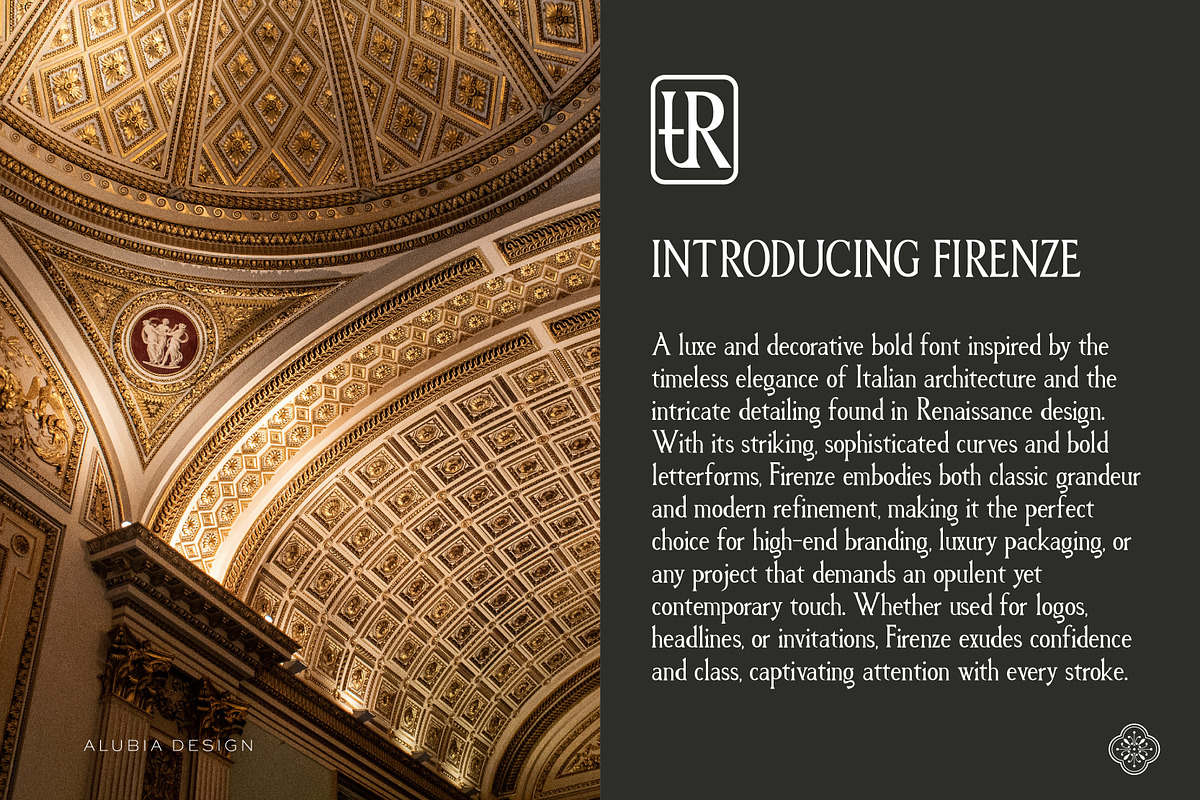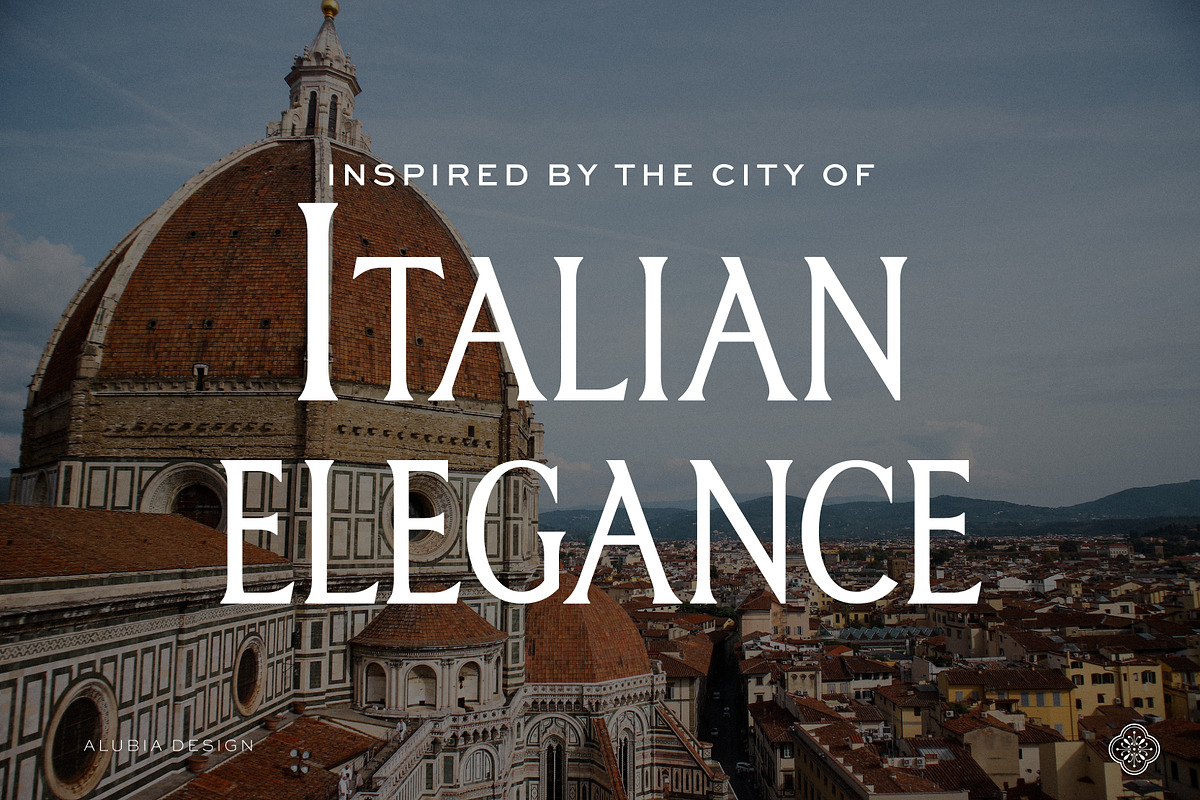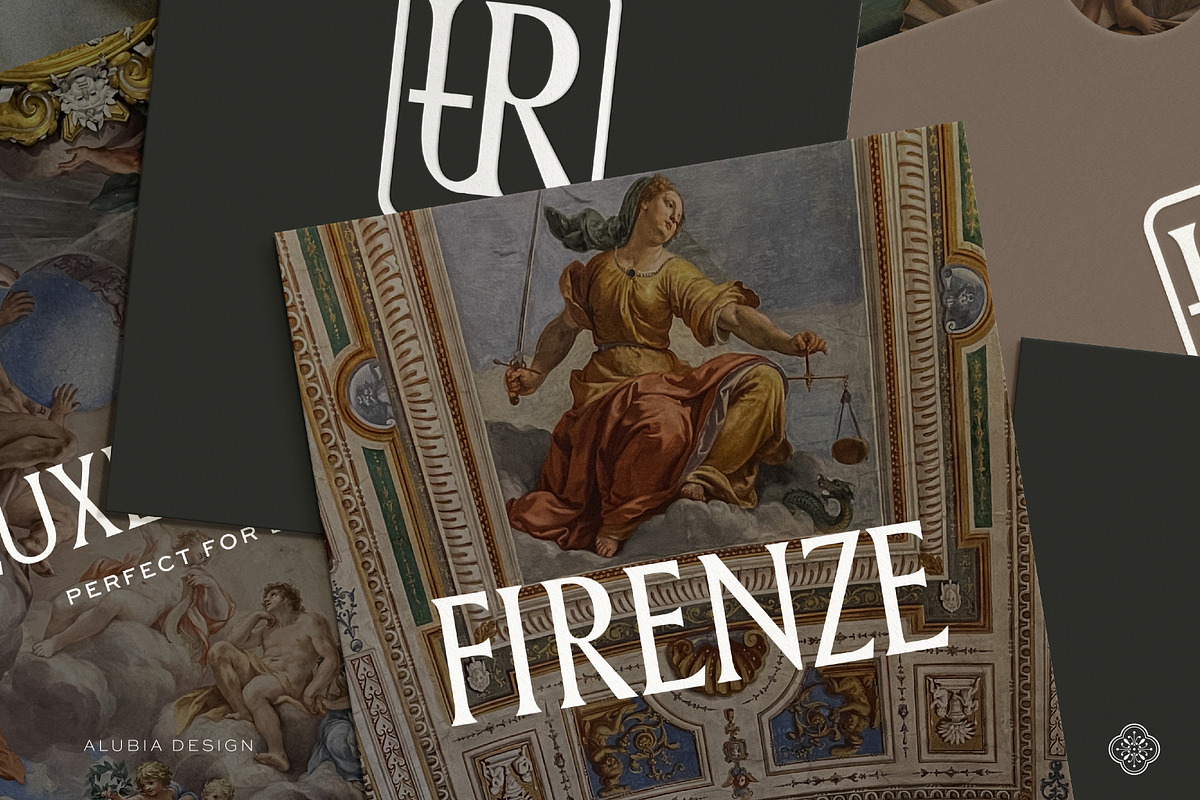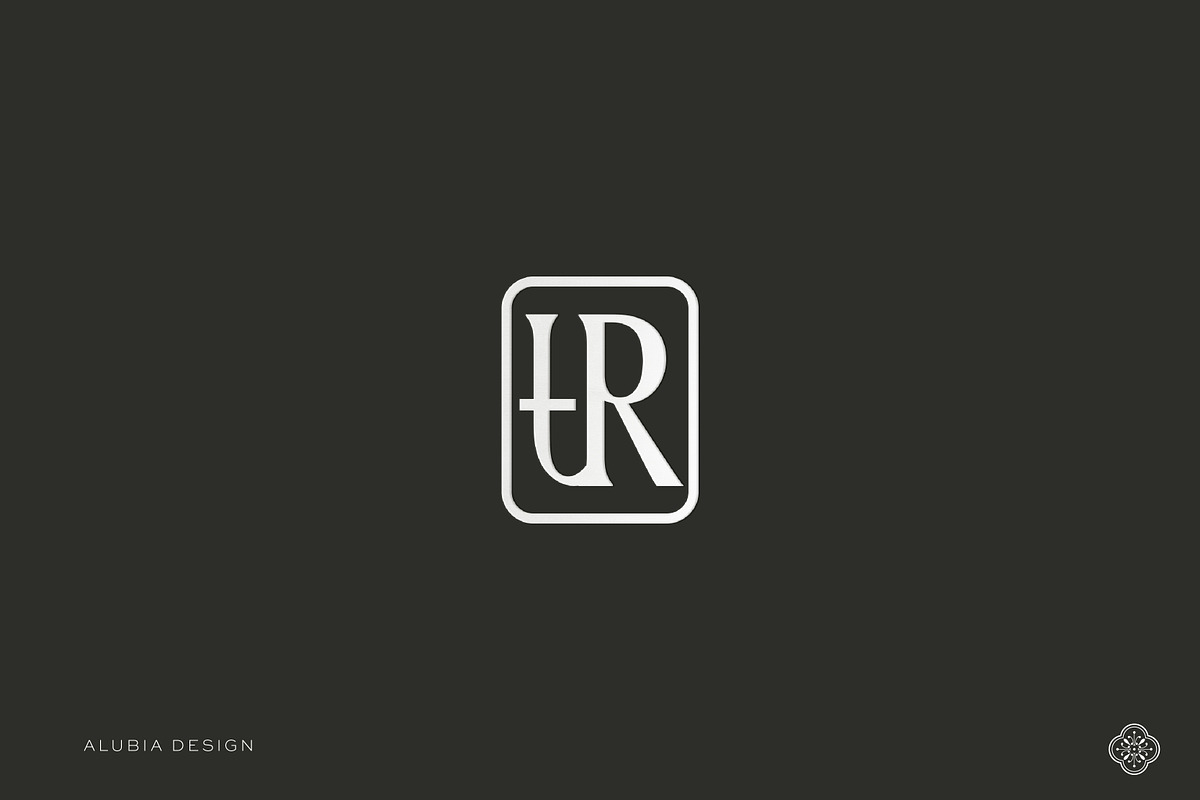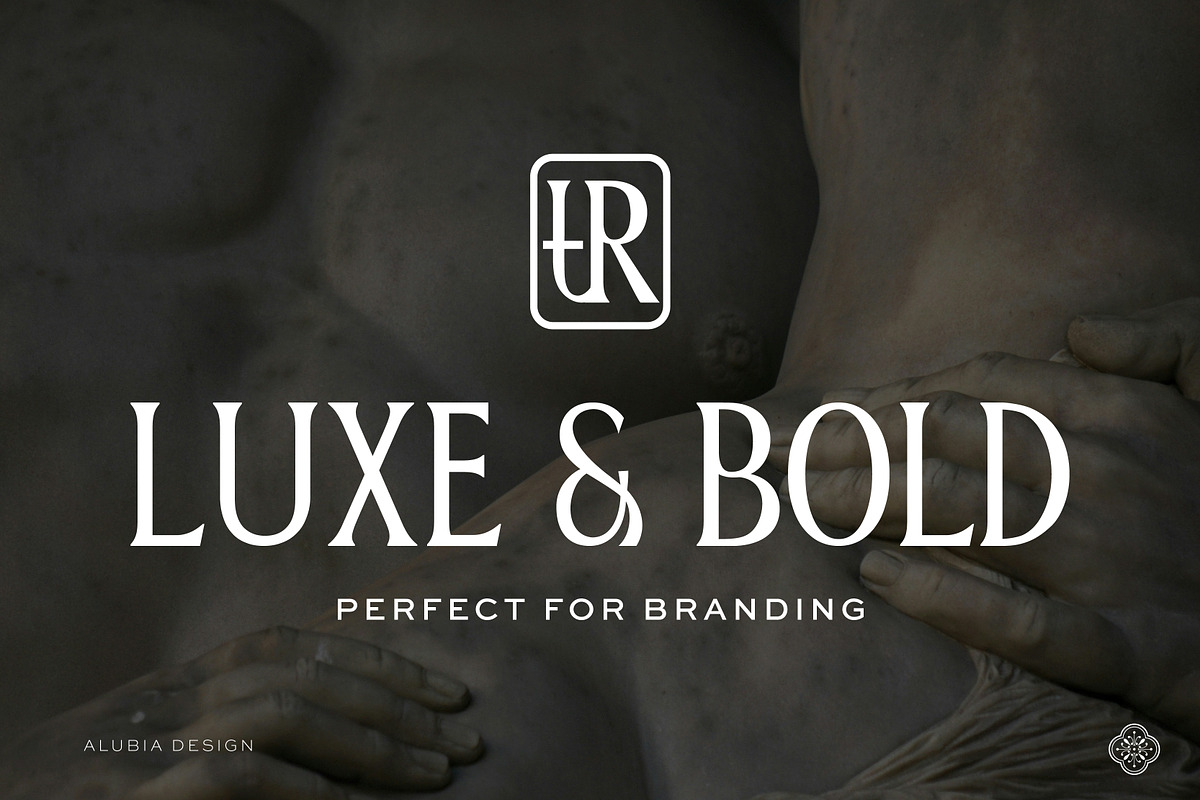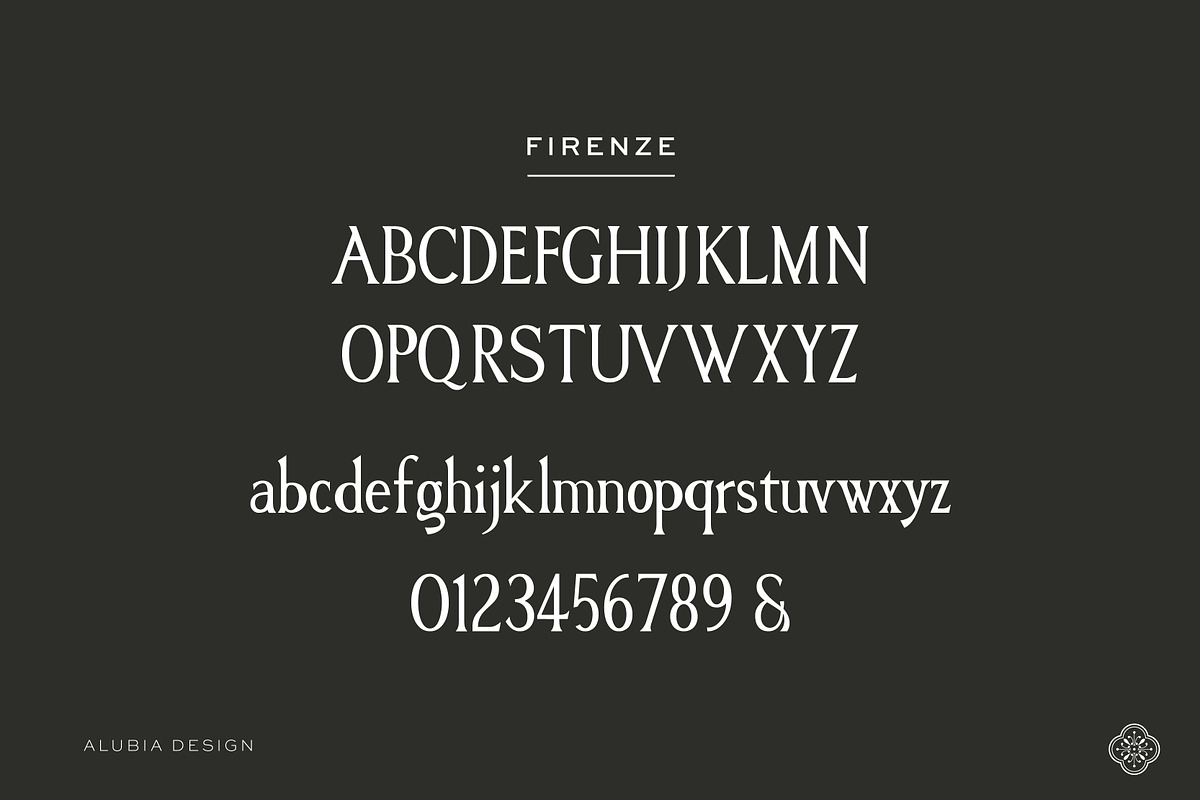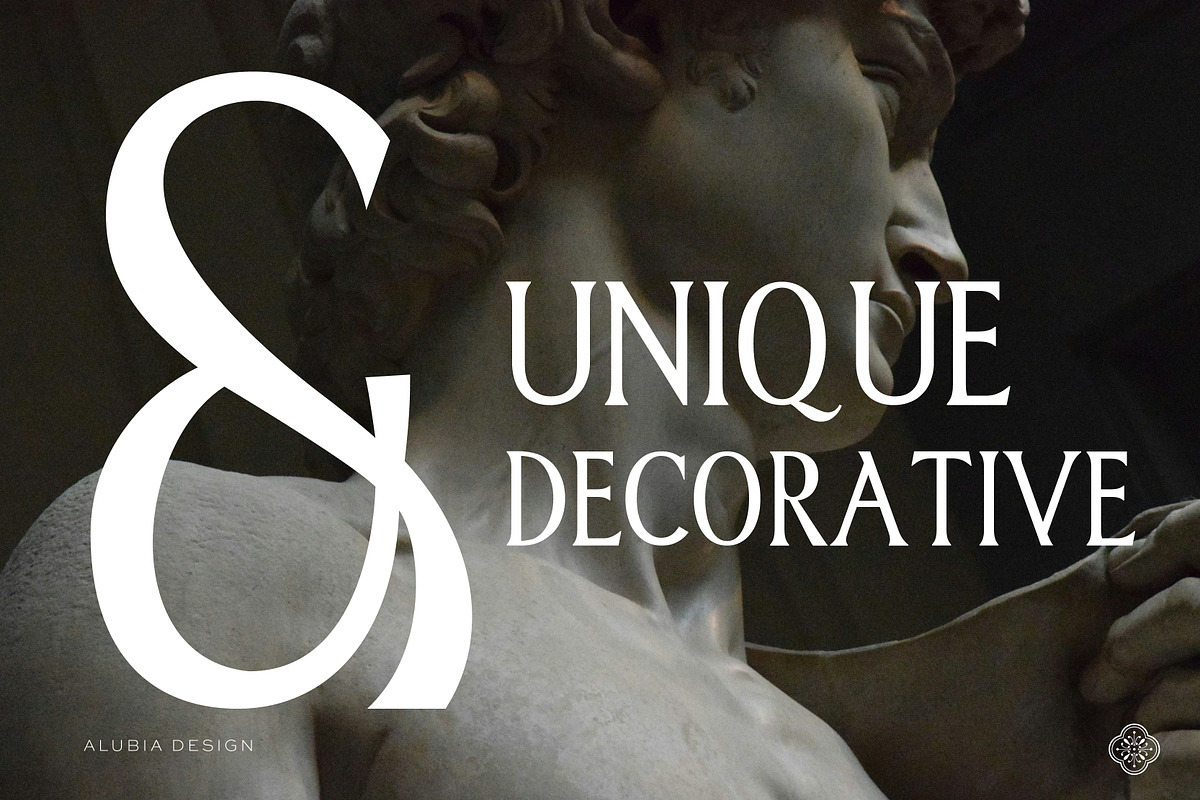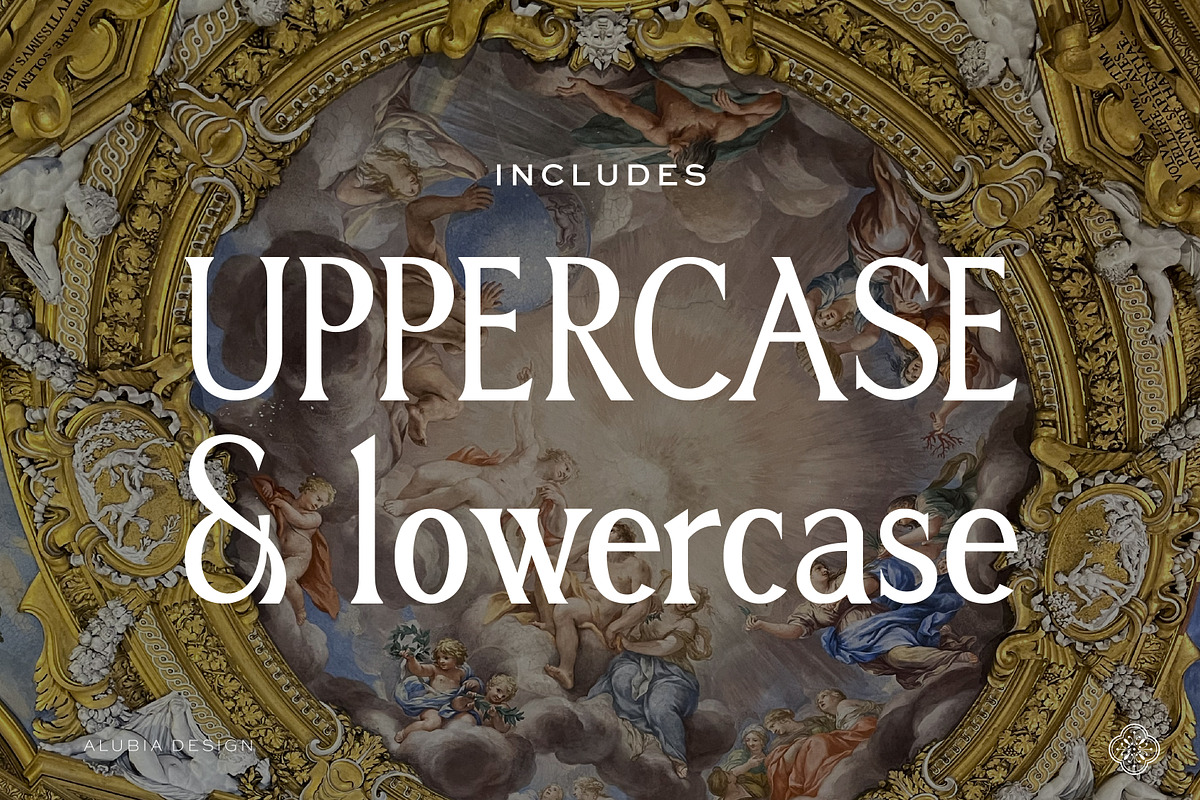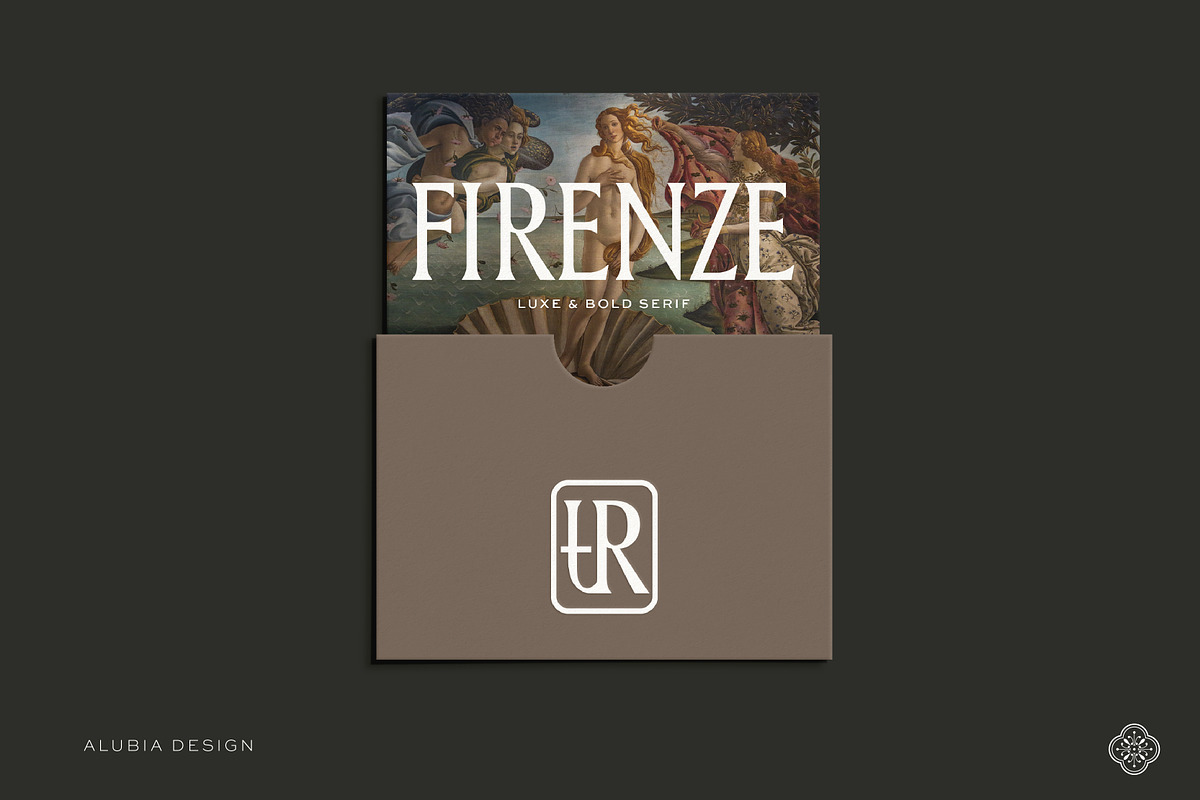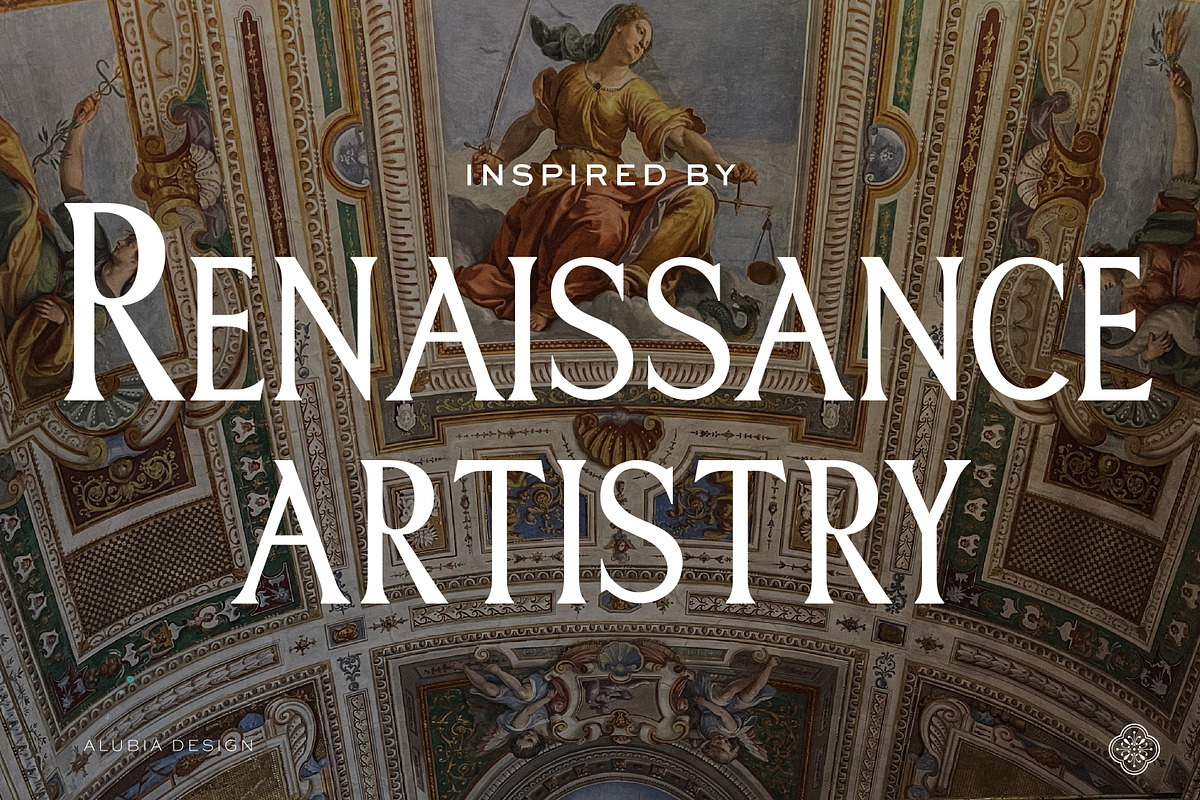
Firenze - Luxurious & bold Serif
Introducing 'FIRENZE' - a bold, decorative serif font inspired by the city of Italian elegance and Renaissance artistry. Perfect for luxe branding, it blends classic grandeur with modern flair.